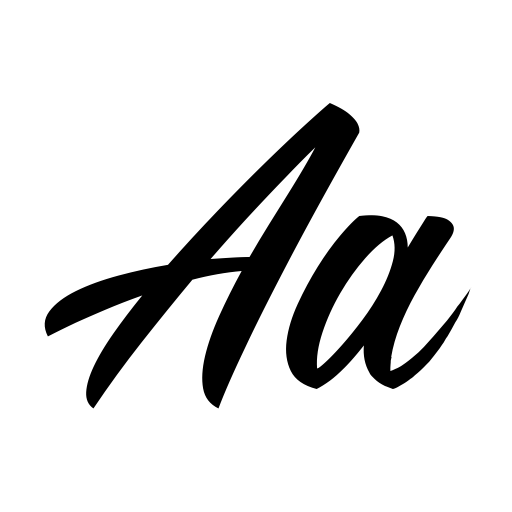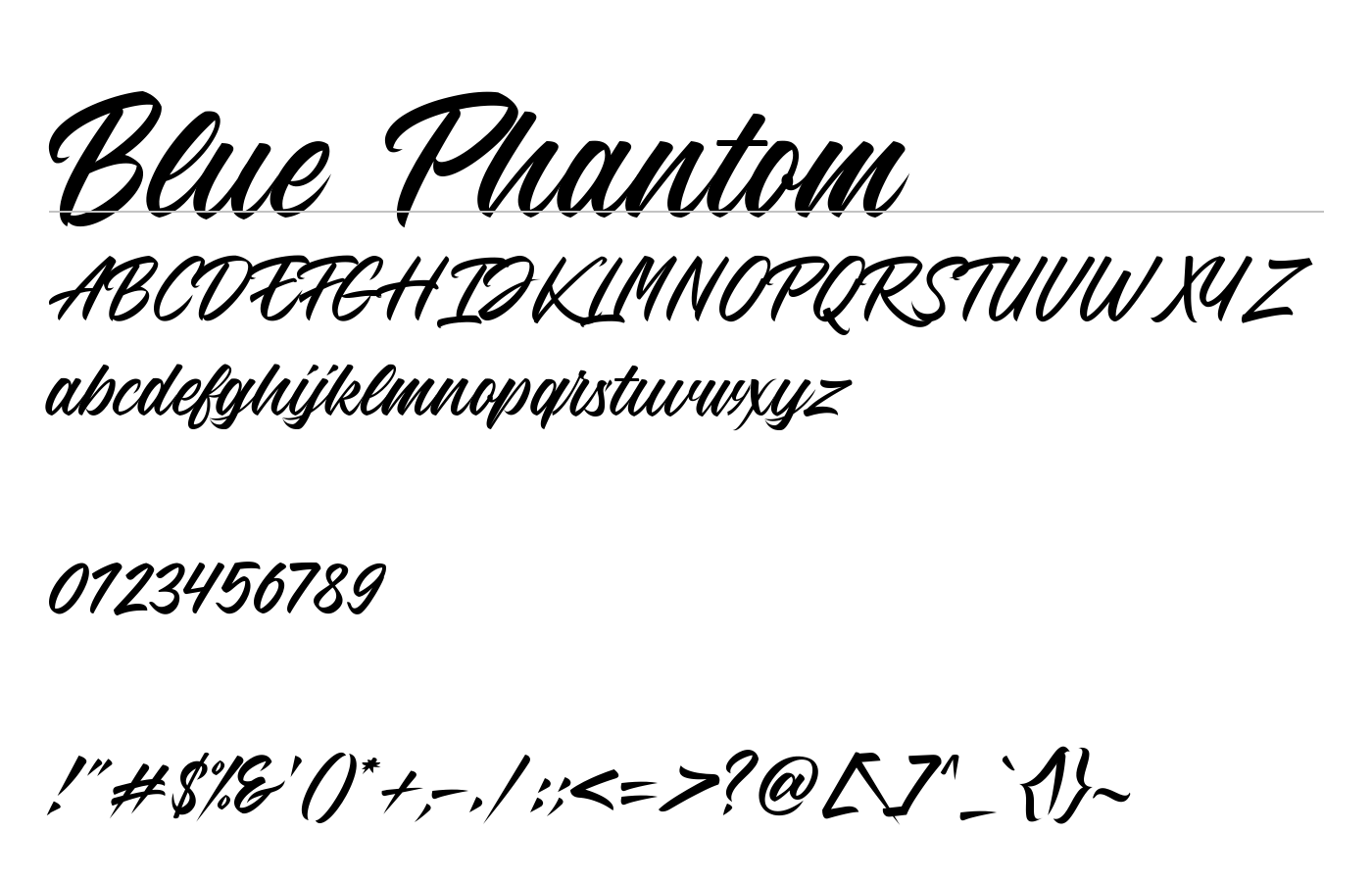
Blue Phantom is a dynamic script font with a bold, flowing style that captures the energetic spirit of modern handwriting. Its smooth, slightly slanted letterforms and lively strokes make it ideal for branding, headlines, and creative projects that want to convey a youthful, stylish, and confident vibe. This font works beautifully in logos, posters, and packaging where a unique and personal touch is desired.
Blue Phantom Font
About Blue Phantom Font
| Designer | Azzam Rouf |